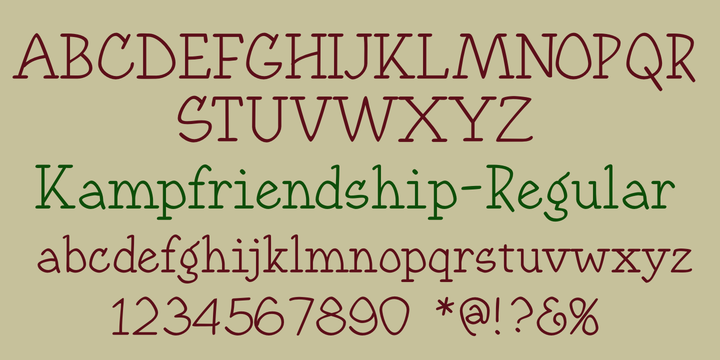
Kamp Friendship
Design Credits
Designed by: Robert Schenk
Designed when: 1994
Design owned by: Ingrimayne Type
Kamp Friendship
KampFriendship is a casual, informal typeface with serifs. The circular letters have an odd triangular shape. Because it has no contrast in the strokes, it appears to be neat but somewhat peculiar hand lettering.